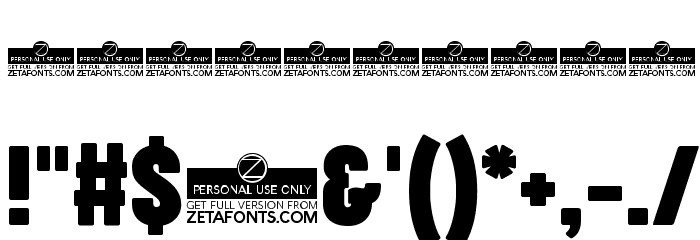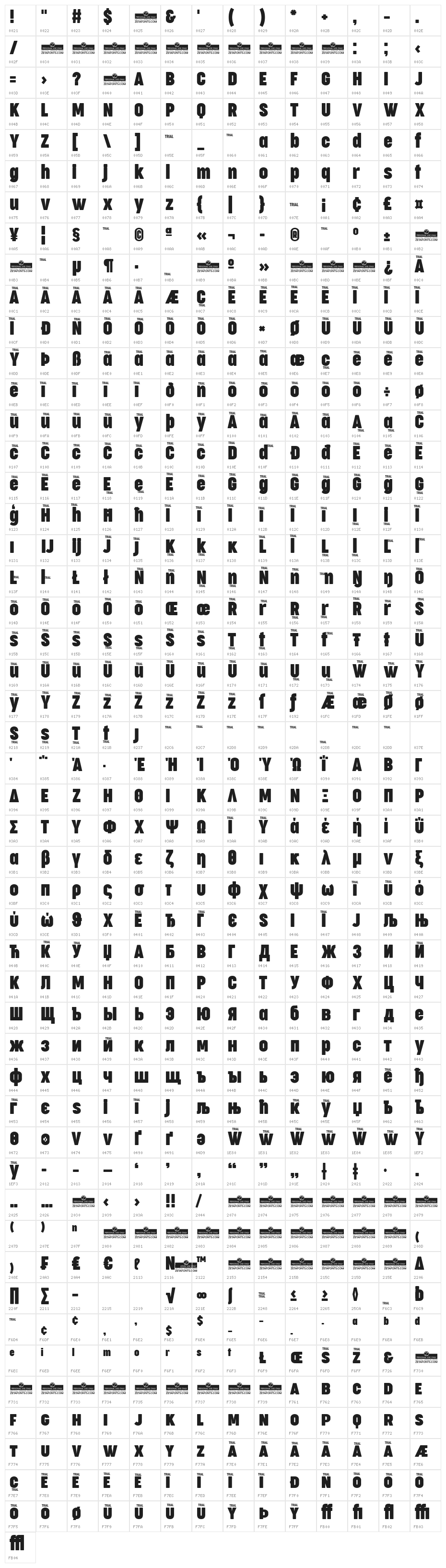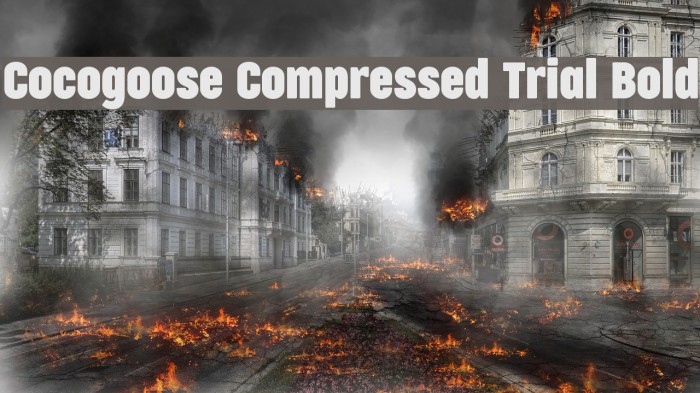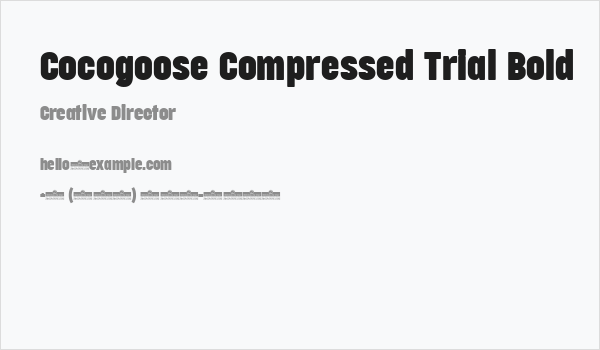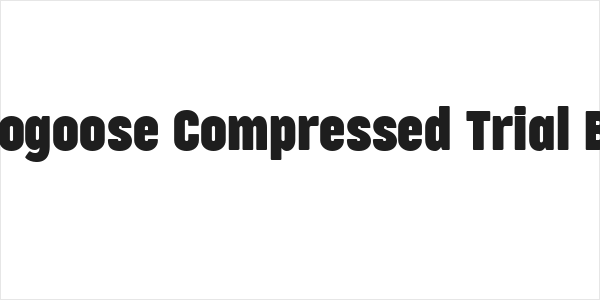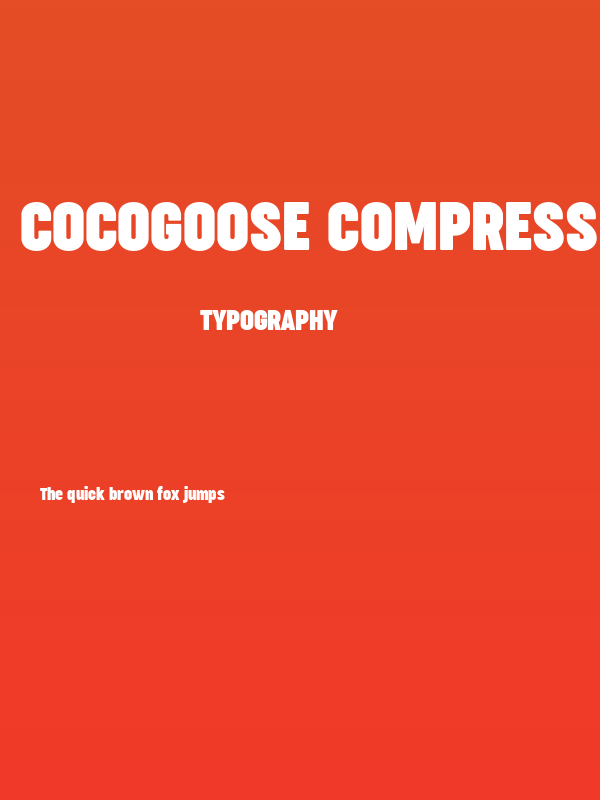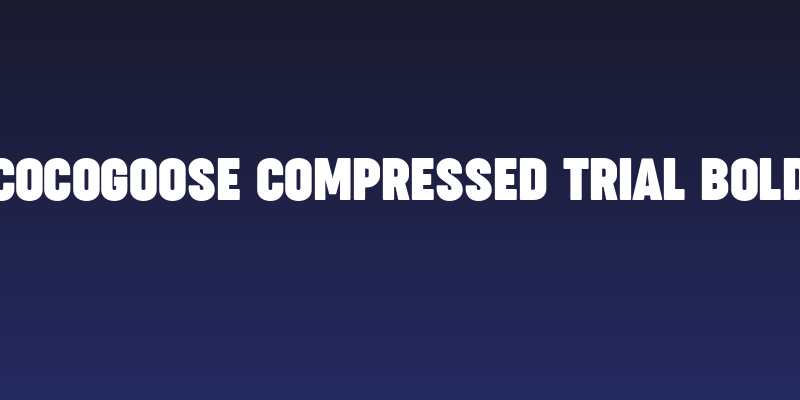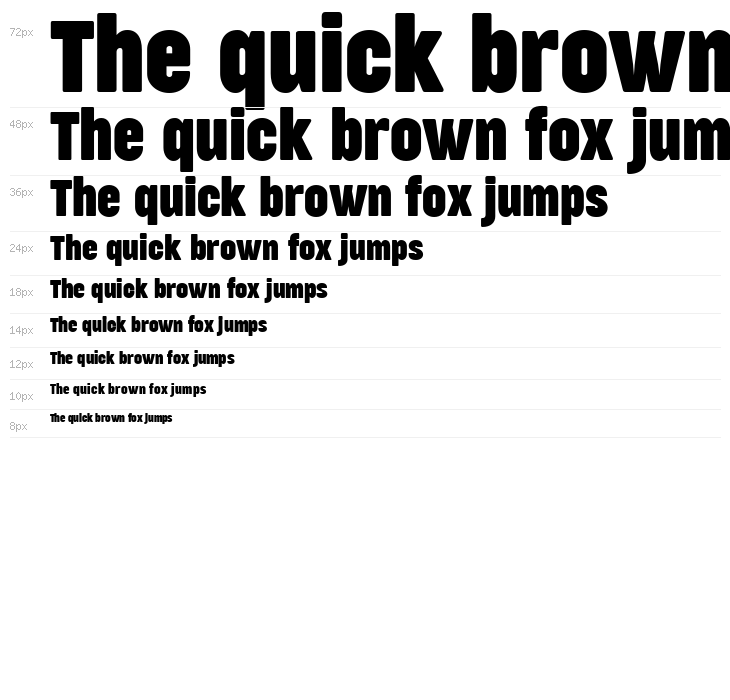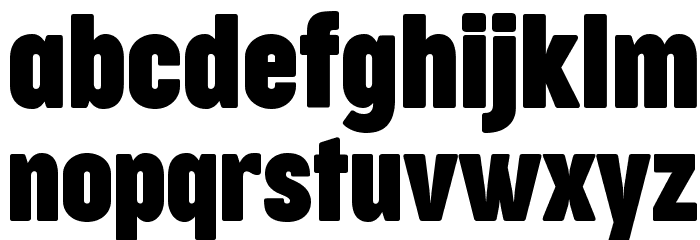
Cocogoose Compressed Trial Bold Font
Cocogoose Compressed Trial Bold Description
This font features a bold and impactful design with a compressed style, making it ideal for creating strong visual statements. The uppercase and lowercase letters are uniformly bold, with a consistent stroke width that enhances readability while maintaining a modern aesthetic. The characters are tightly spaced, contributing to its compact appearance. The font includes a full set of uppercase and lowercase letters, numbers, and a variety of special characters, making it versatile for various design needs. Its boldness and compressed nature make it suitable for attention-grabbing headlines and titles.
| Proposed Projects | Perfect for branding, posters, advertising, and any project requiring a strong visual impact. |